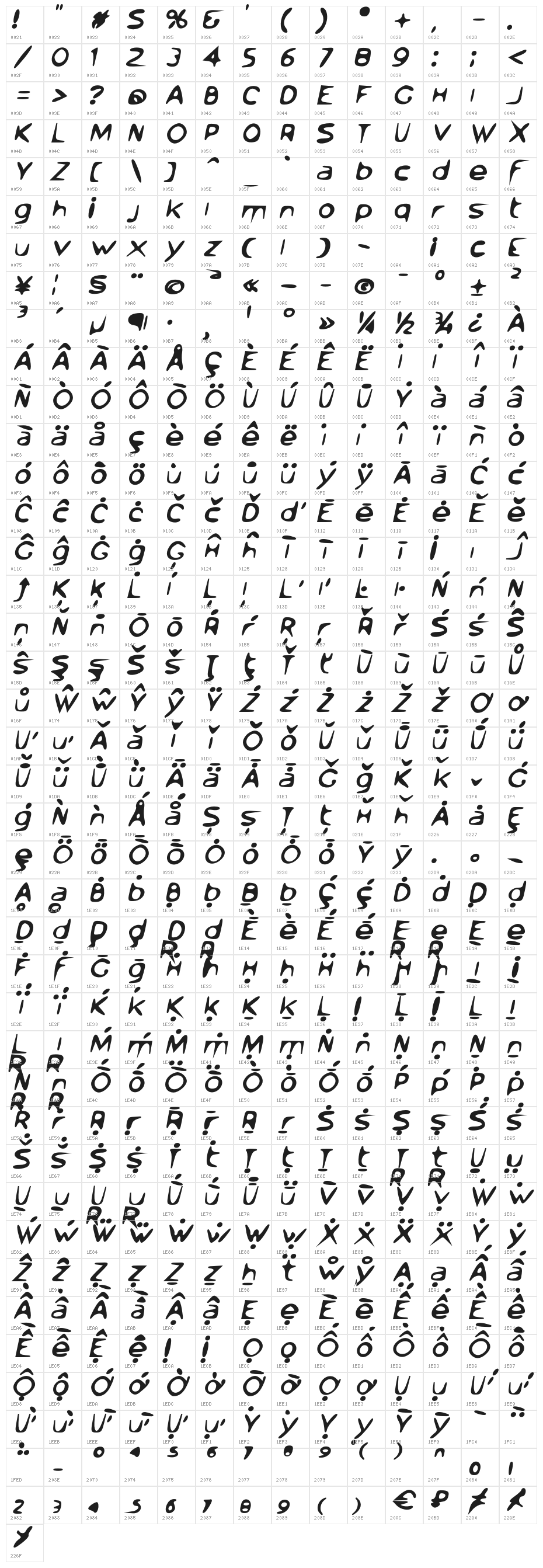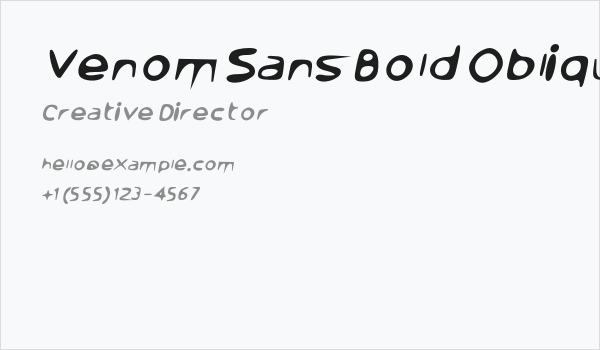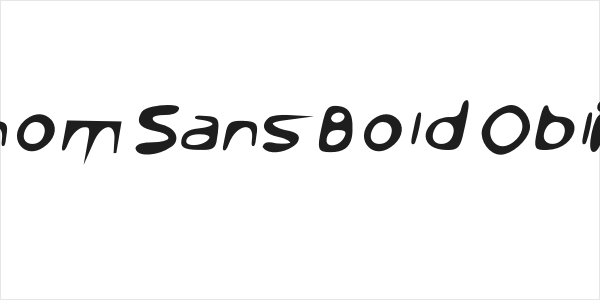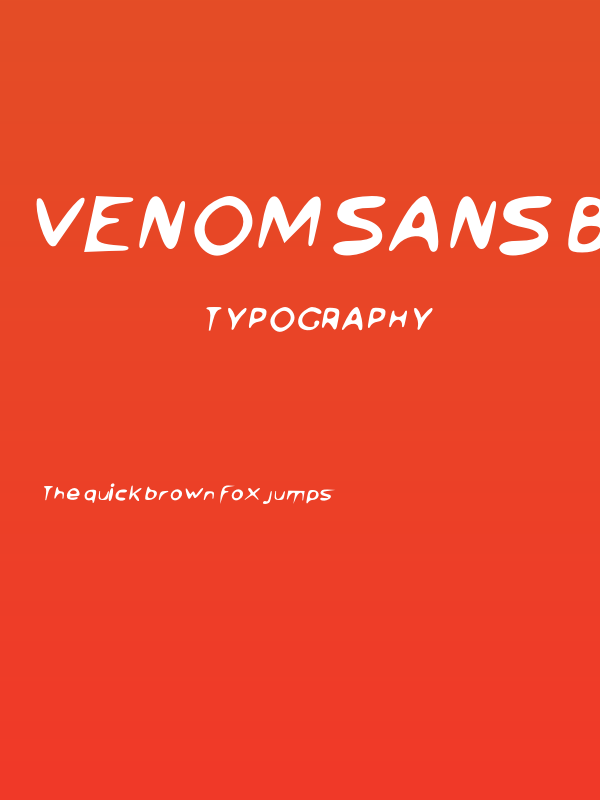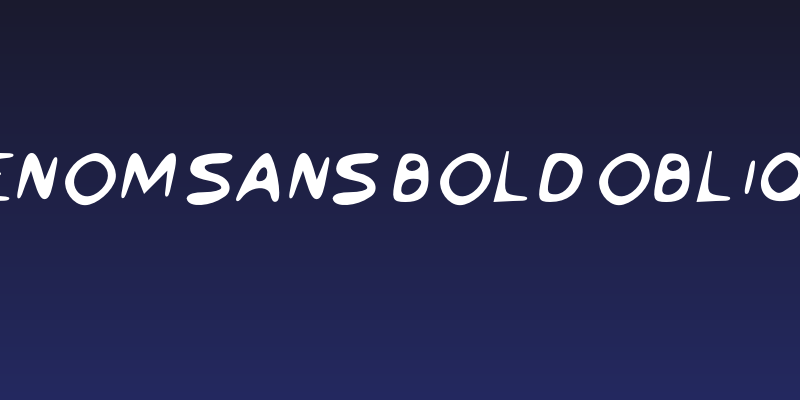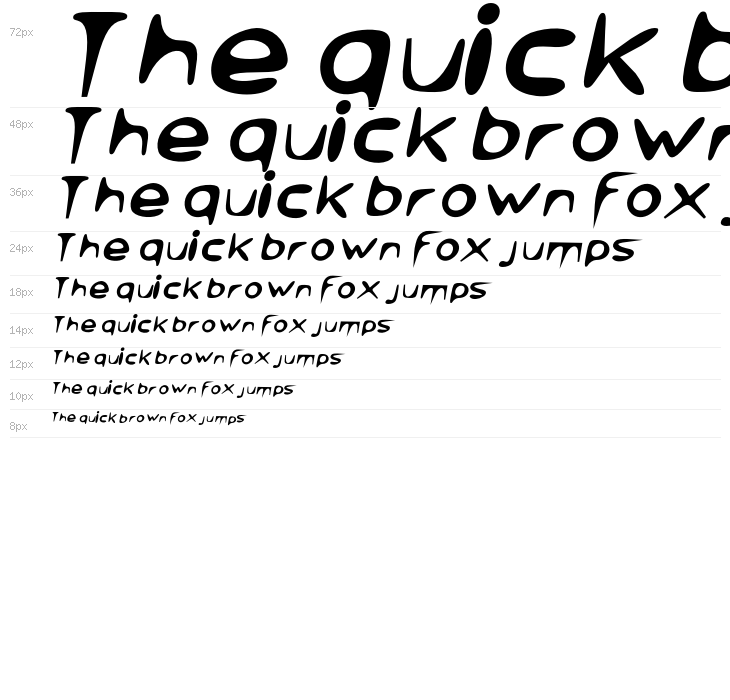
Venom Sans Bold Oblique Font
Venom Sans Bold Oblique Description
This font exhibits a bold and dynamic style with a distinct oblique slant, giving it a sense of movement and energy. The characters are thick and robust, with a playful yet aggressive appearance. The strokes are uneven, adding a unique, almost hand-drawn quality. The uppercase letters are particularly striking, with exaggerated curves and angles that create a sense of drama. The lowercase letters maintain this boldness, ensuring consistency throughout the typeface. Numbers and special characters are equally bold, with a quirky flair that complements the overall design. This font is perfect for projects that require a strong, eye-catching typeface with a modern and edgy vibe.
Proposed ProjectsIdeal for branding, posters, video game titles, and any project needing a bold, energetic typeface.